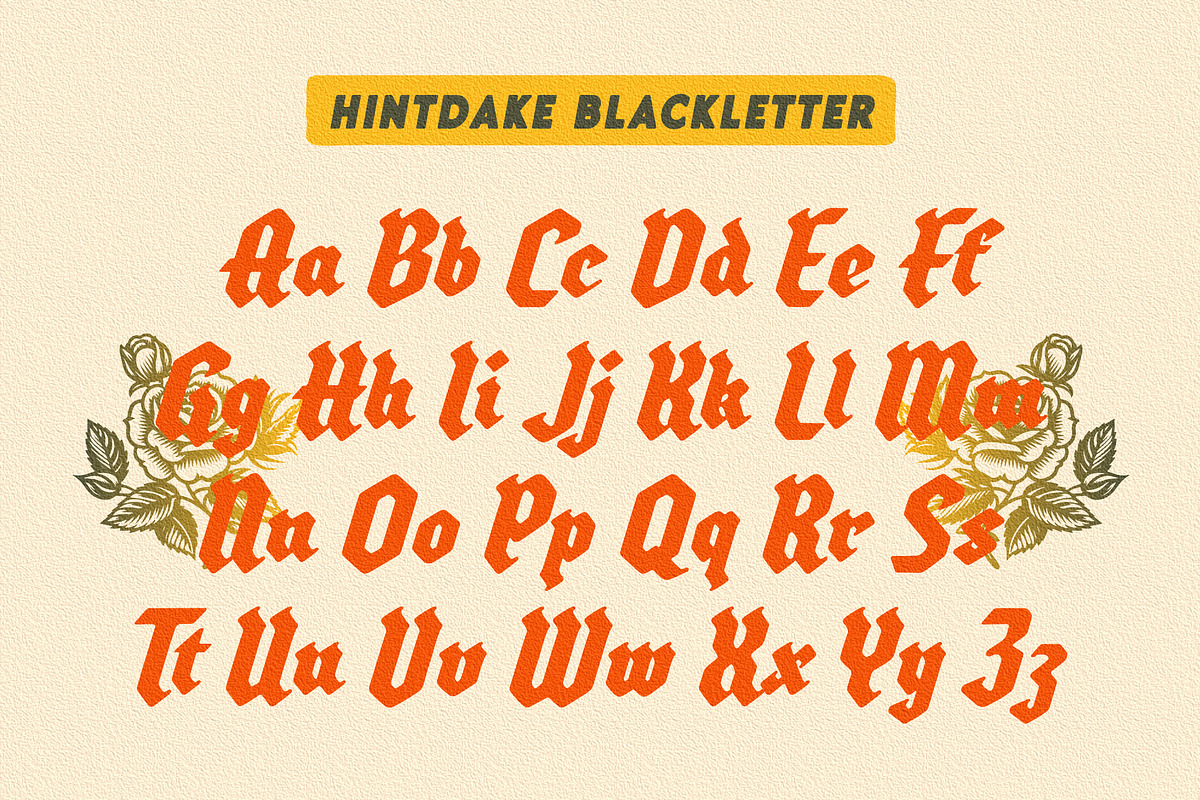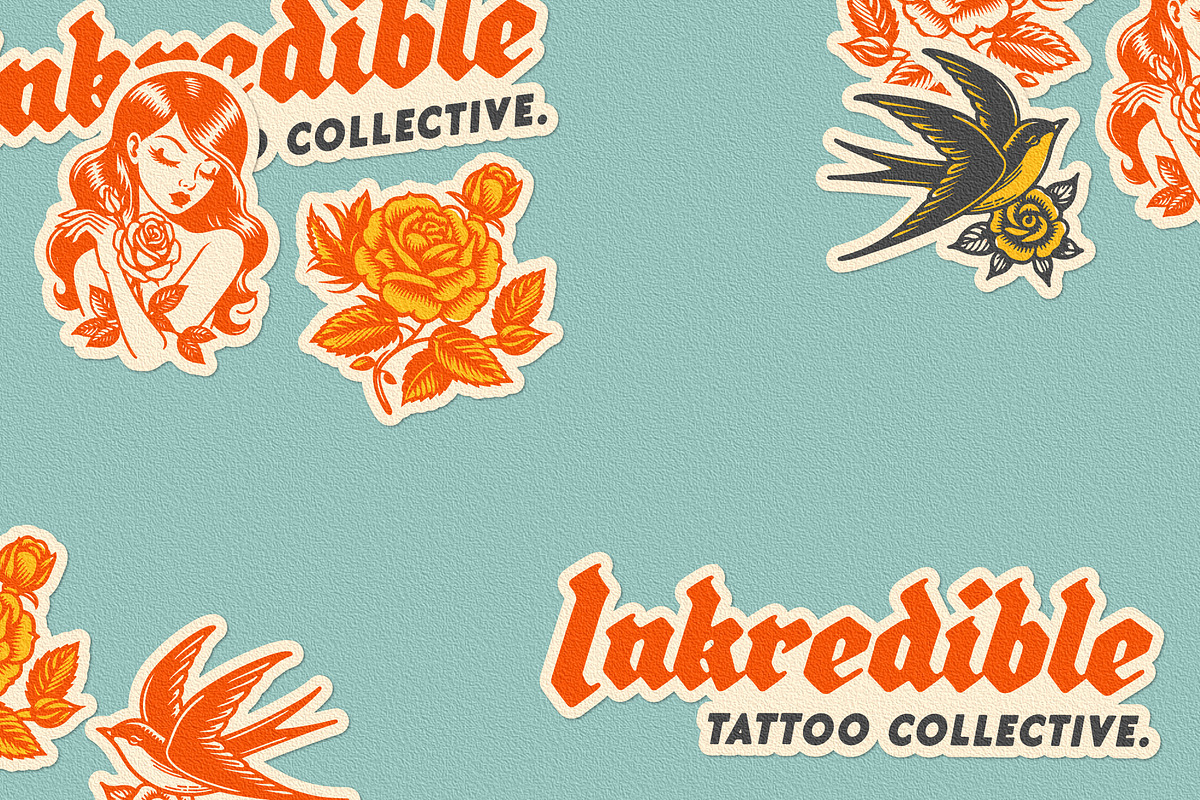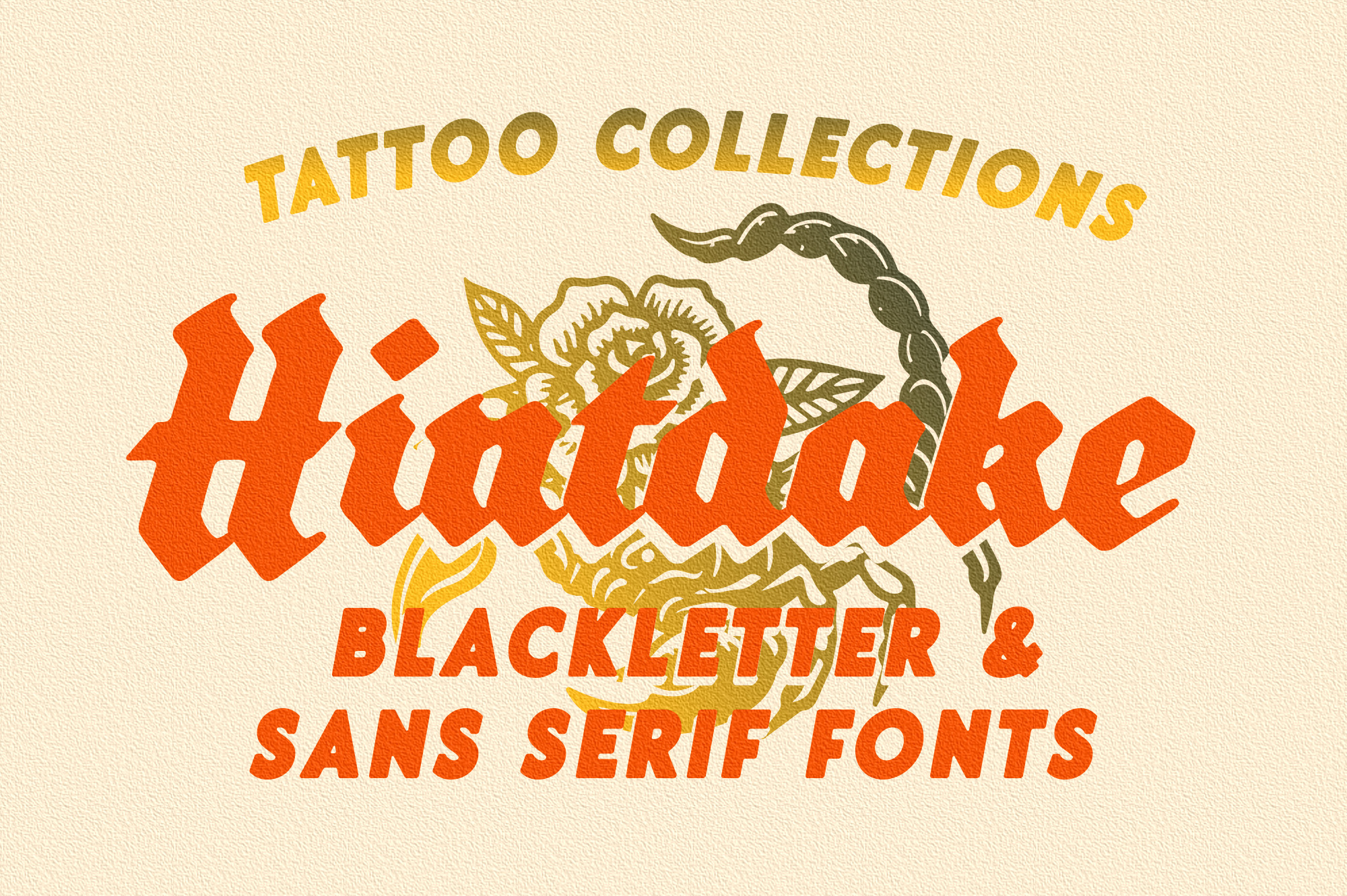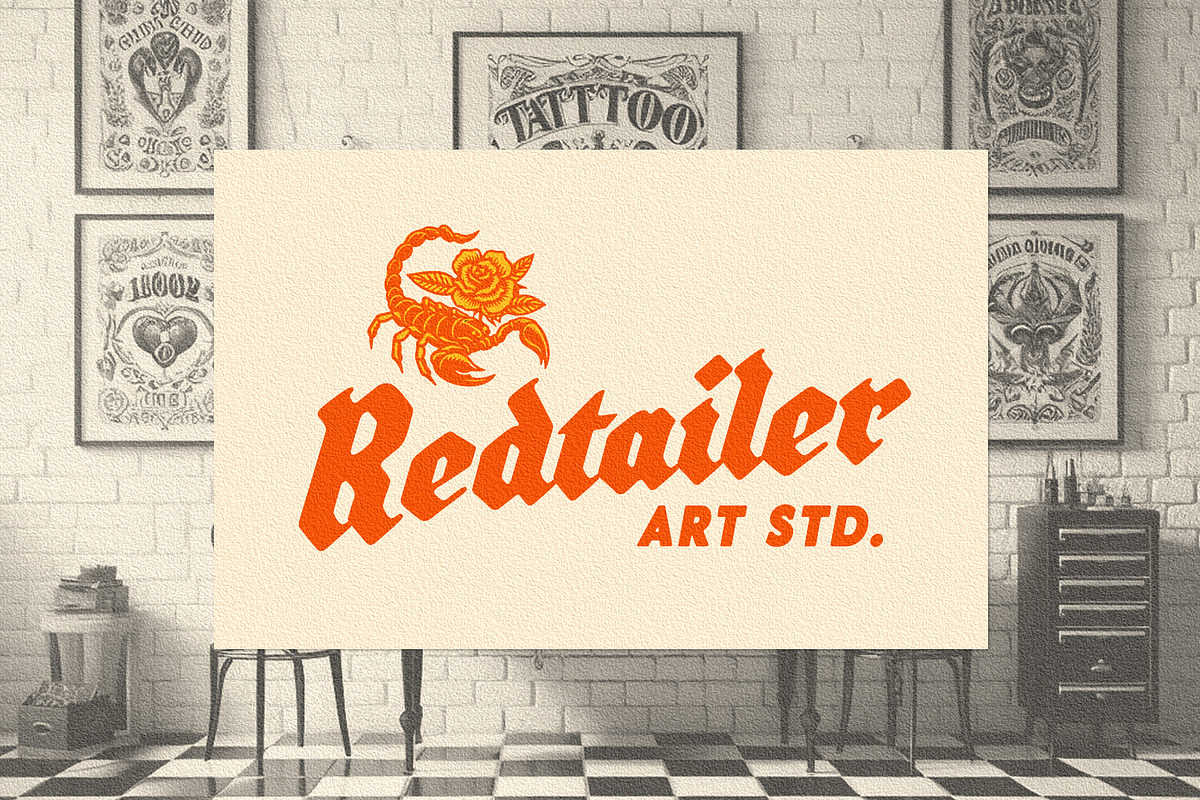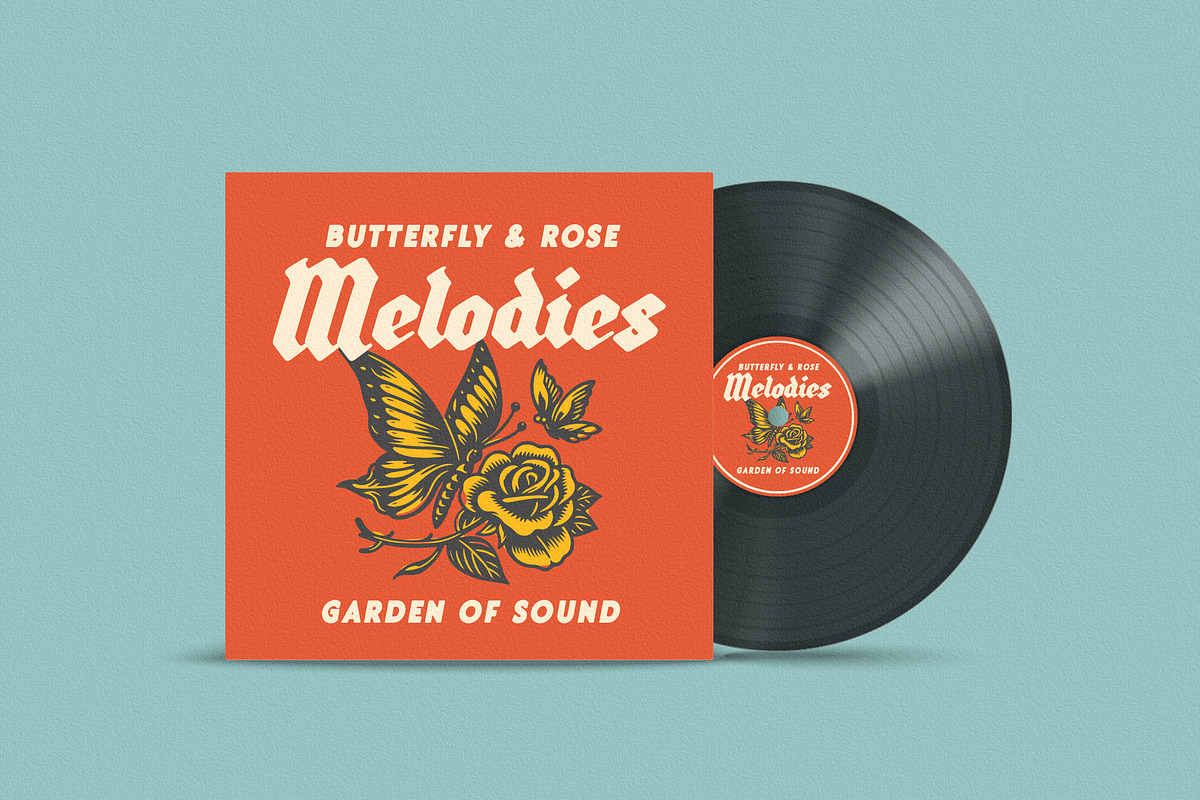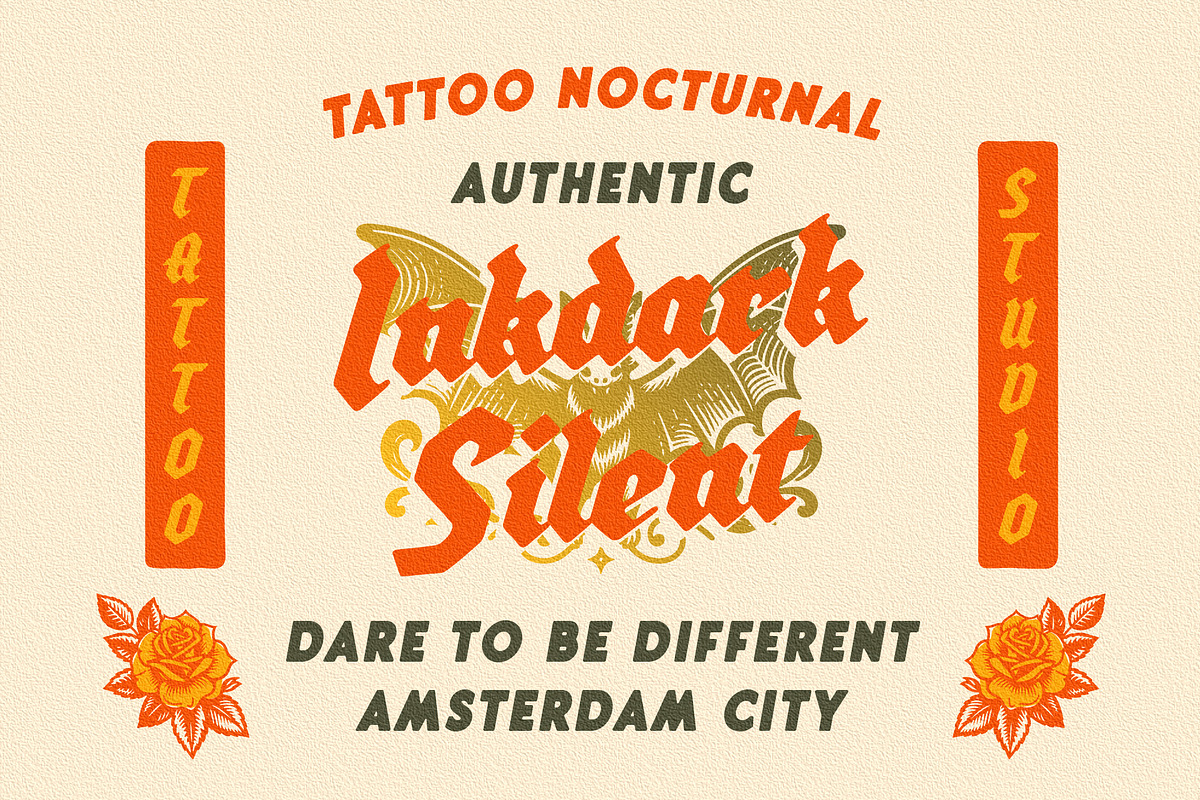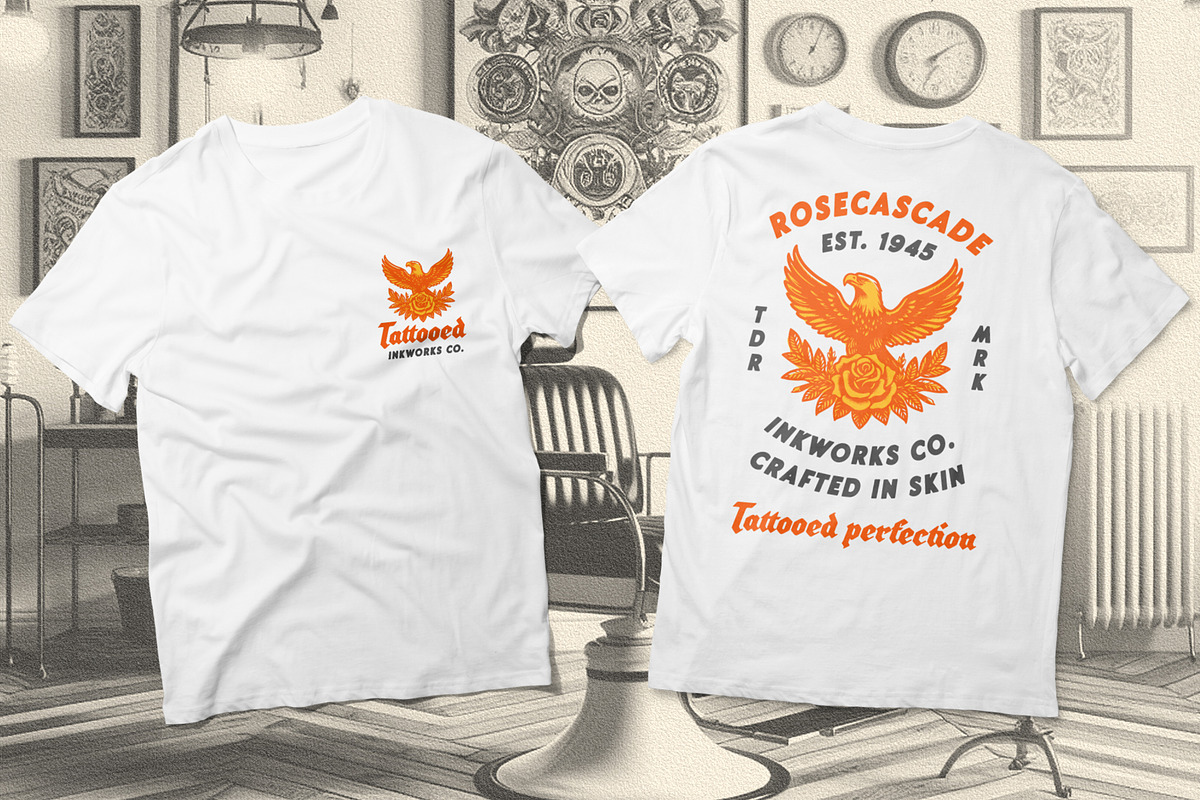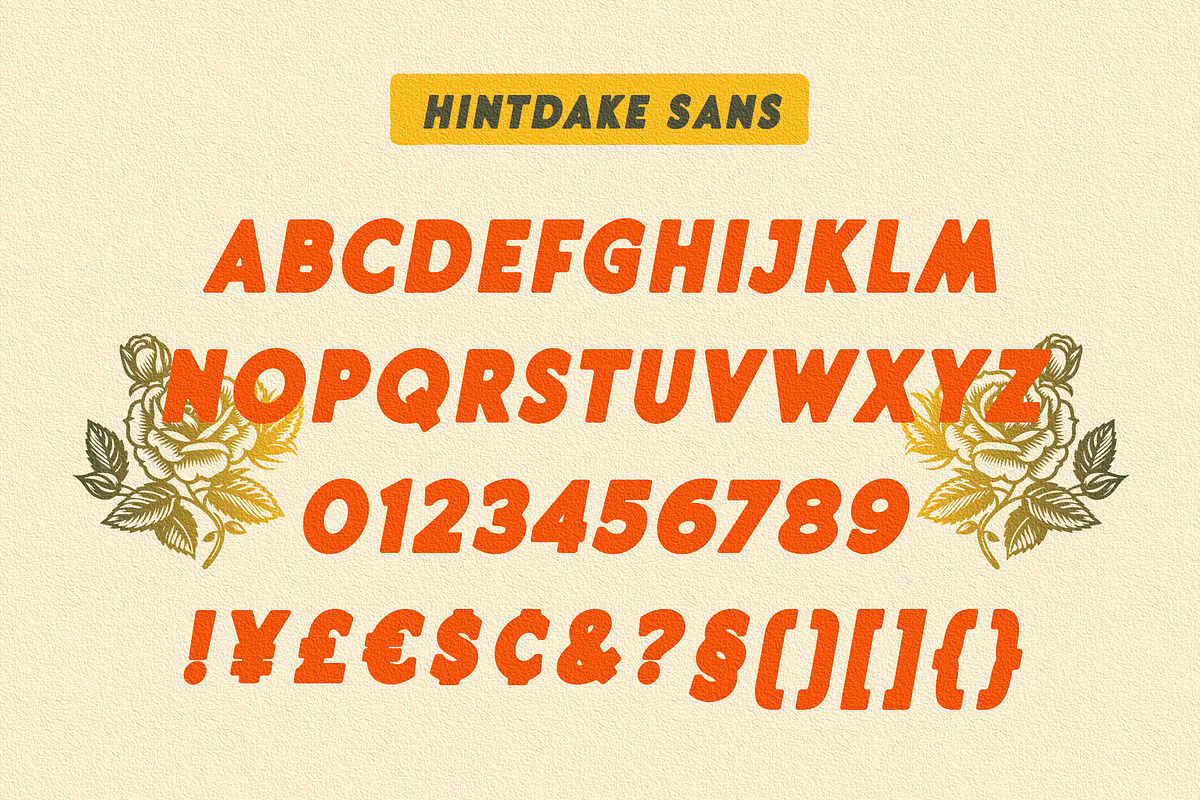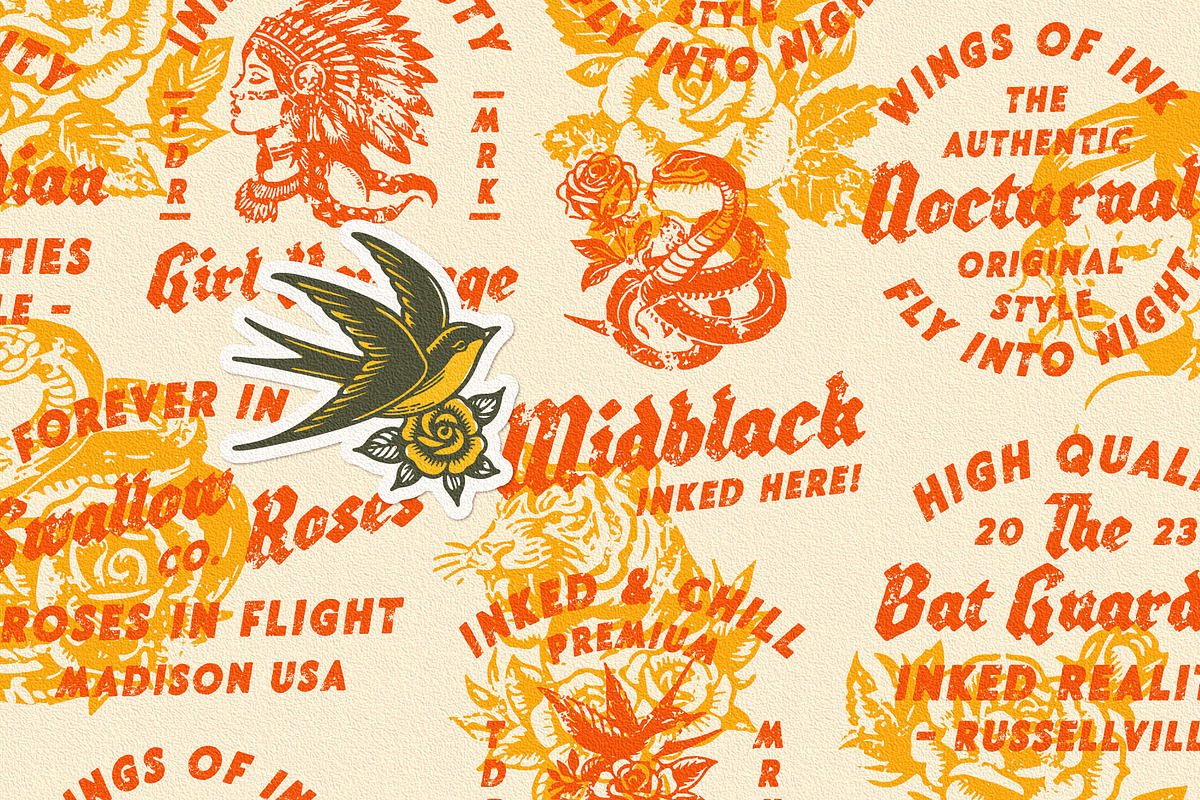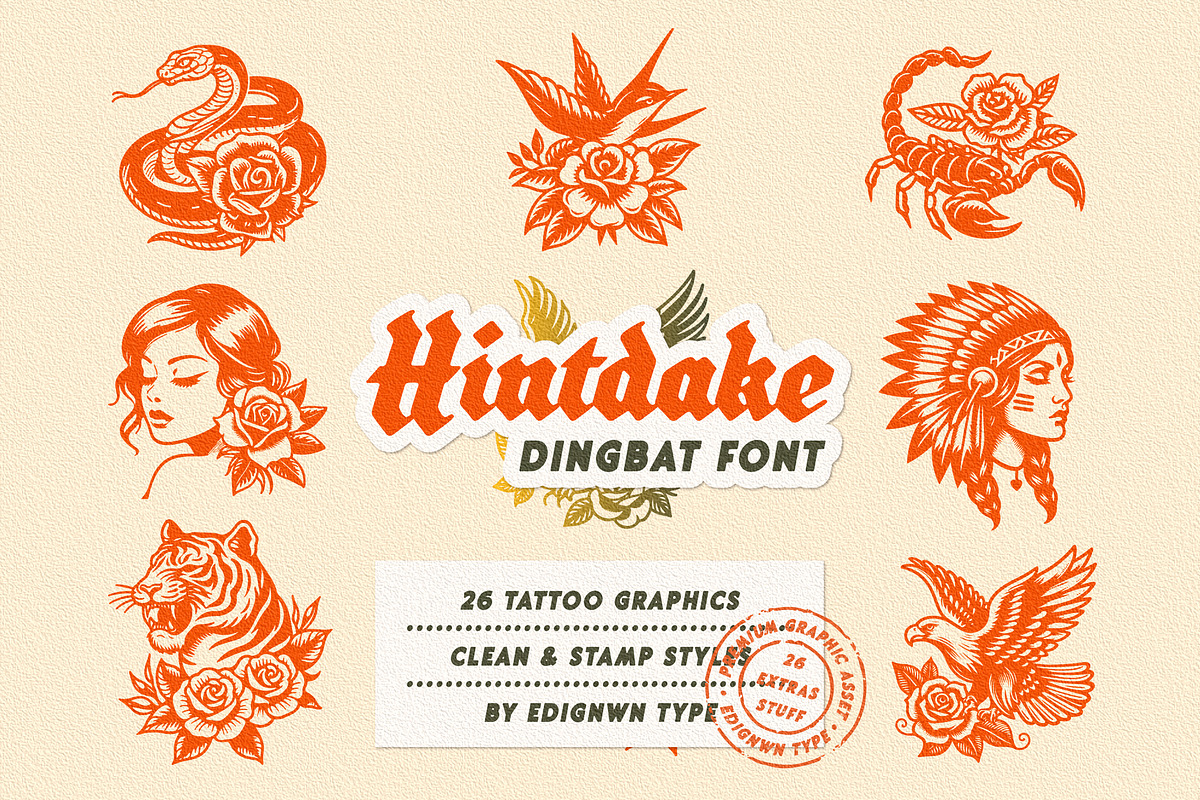
Hintdake - Tattoo Blackletter Font
Hintdake is more than just a font; it's your ticket to a tattoo font collection. Featuring three styles (regular, rough, and stamp) and 26 bonus tattoo illustrations. Hintdake is your secret weapon for standout logos, branding, and apparel designs. Dive into the world of blackletter fonts and make your creative mark with this exceptional collection.
Hintdake font features :
- 3 style typefaces (regular, rough and stamp)
- Uppercase, lowercase, numeral, symbol, punctuation and ligature in blackletter font
- All-caps, numeral, symbol and punctuation in sans serif font
- 8 fonts (blackletter, sans serif and dingbat)
- 26 tattoo illustrations in dingbat